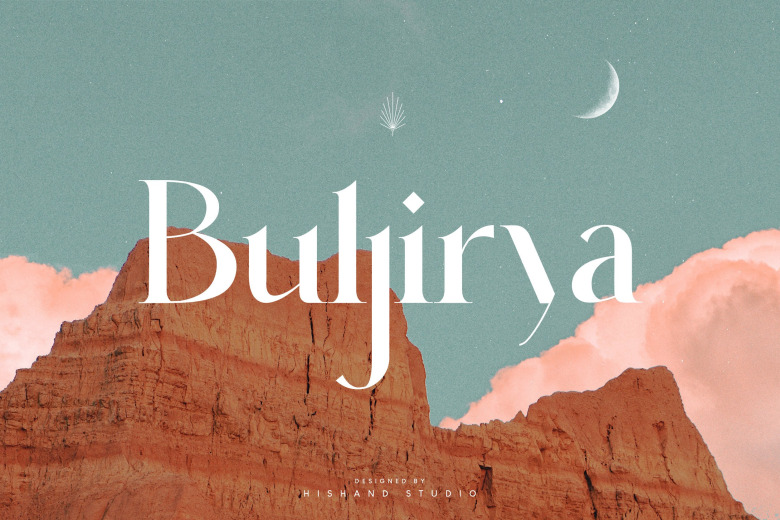
Buljirya Font
Buljirya is an elegant, classic and cool serif font. Fall in love with its incredibly versatile style and use it to create gorgeous wedding invitations, beautiful stationary art, eye-catching social media posts, and much more!